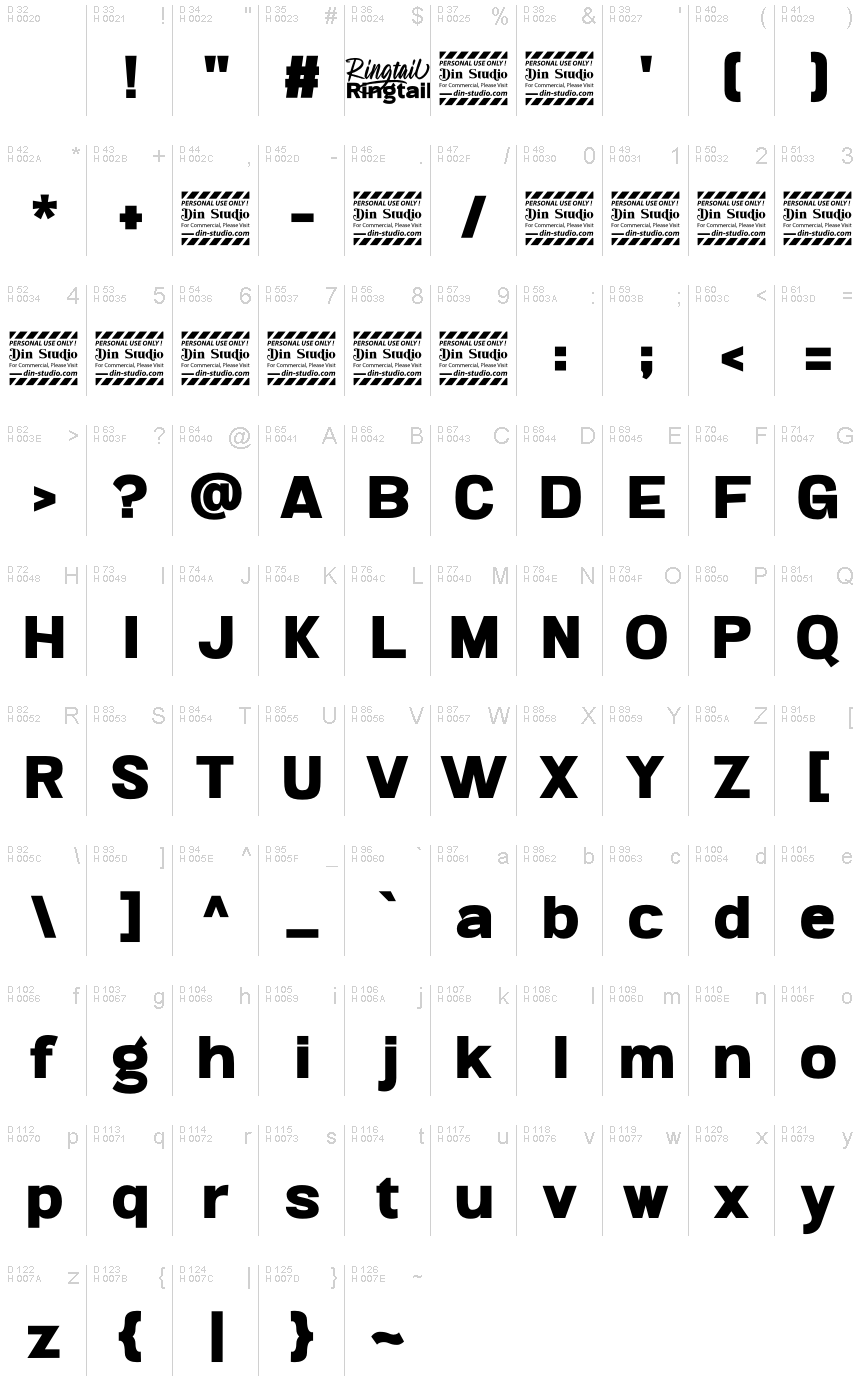
Ringtail Sans Serif Personal Us
Ringtail Sans Serif font, designed by Din Studio, embodies the essence of a bold sans serif style, offering a striking visual presence ideal for impactful design projects.
Its robust lines and clean aesthetics make it versatile for diverse applications, from modern branding to eye-catching headlines. This free font is perfect for those seeking to enhance their creative projects with a contemporary edge.